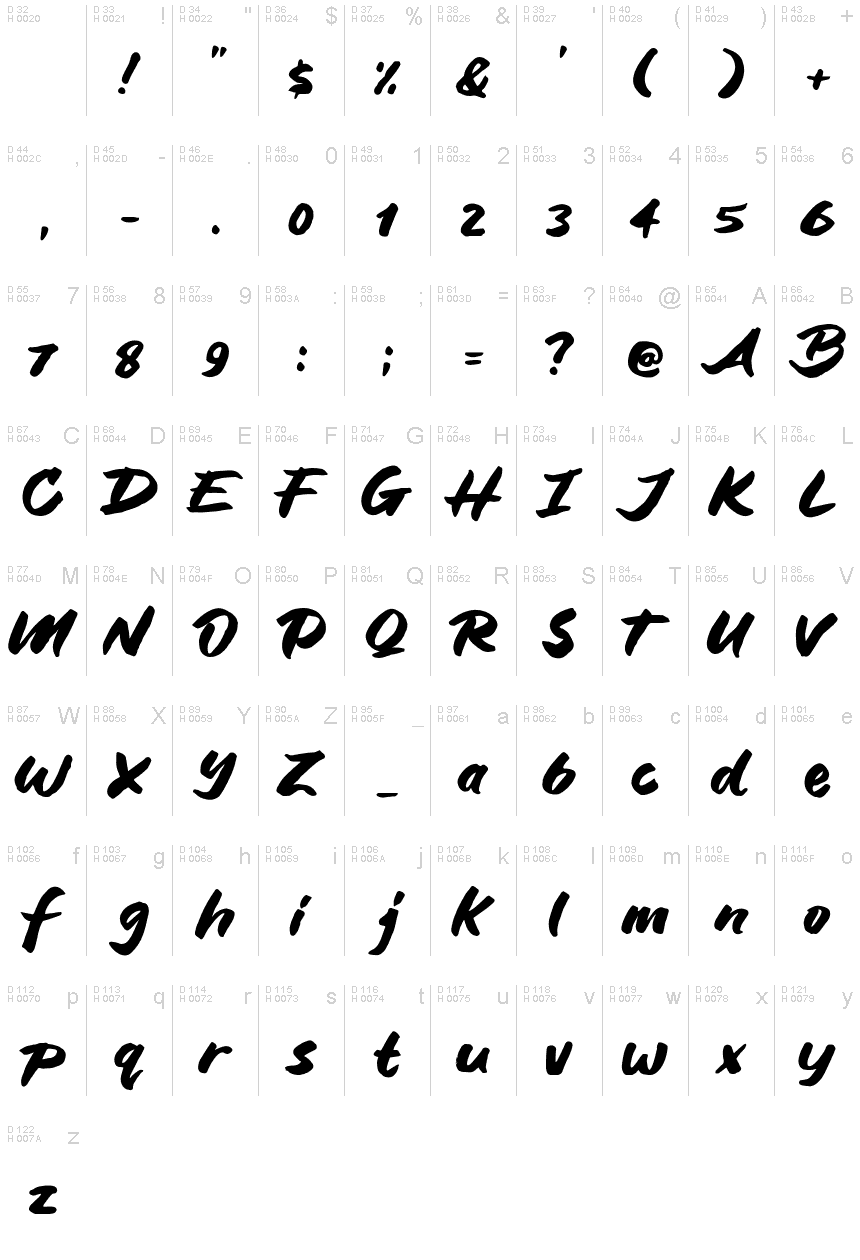
Blank Orange
Introducing Blank Orange, a bold brush font designed by Khurasan. Perfect for projects that call for a stand-out, daring look - from poster designs to logos and more. With its thick brush strokes, Blank Orange will make your work stand out and shine.